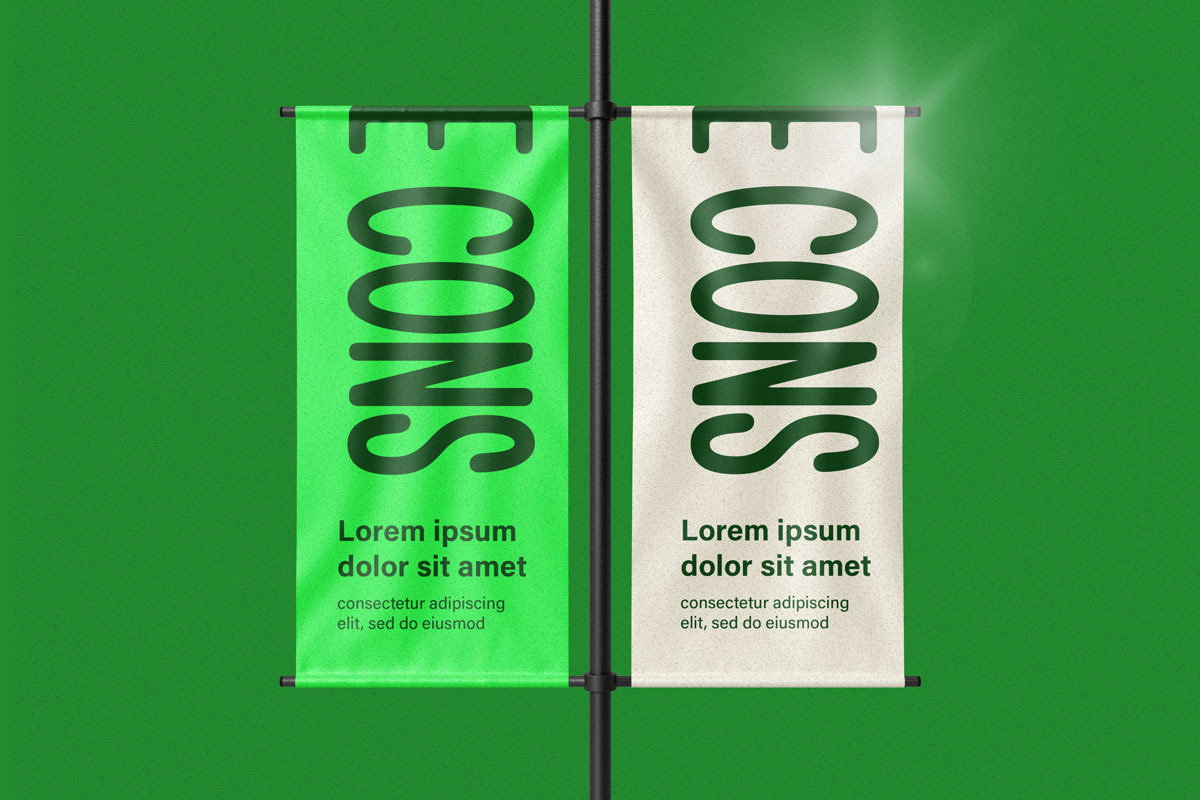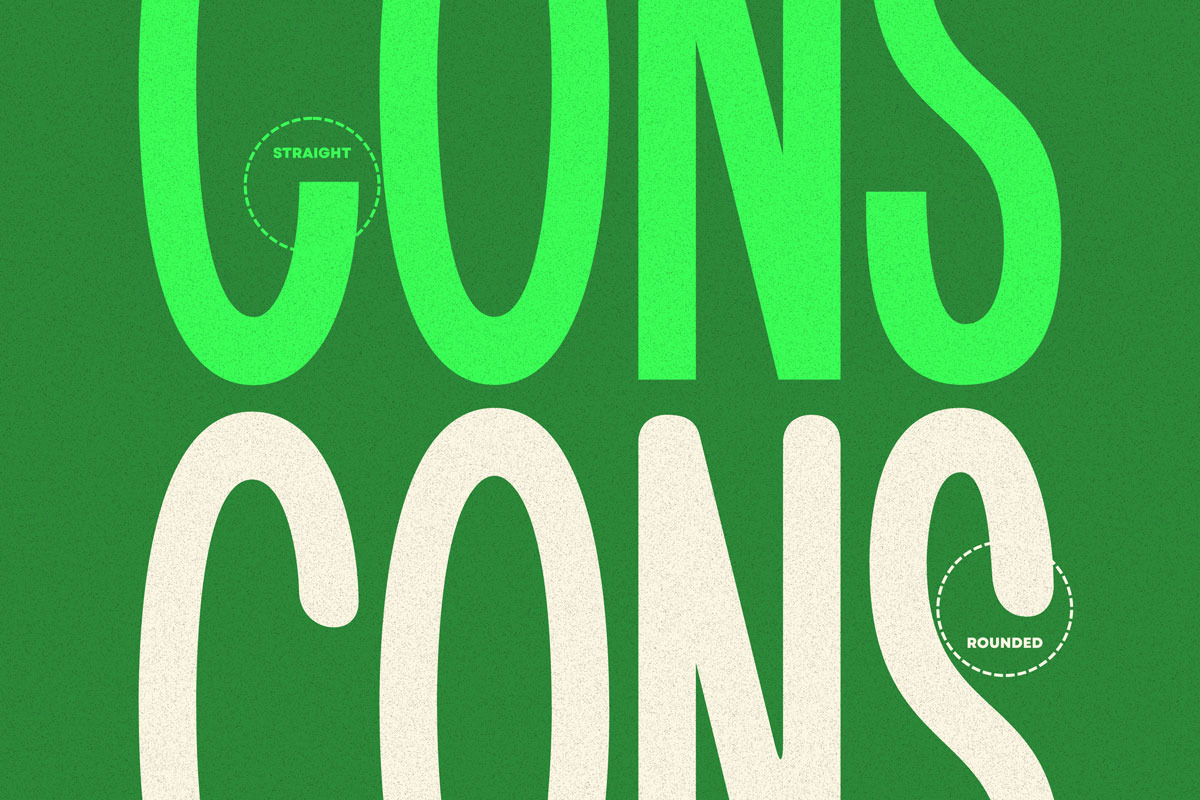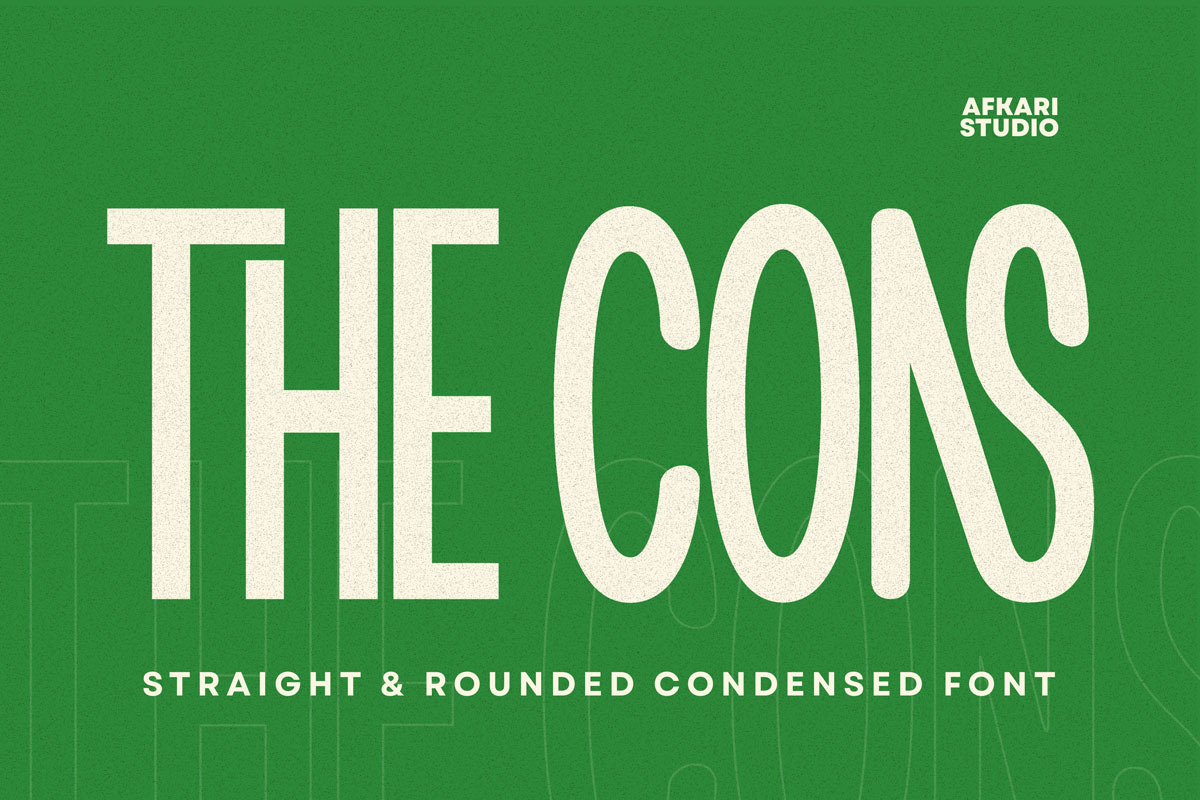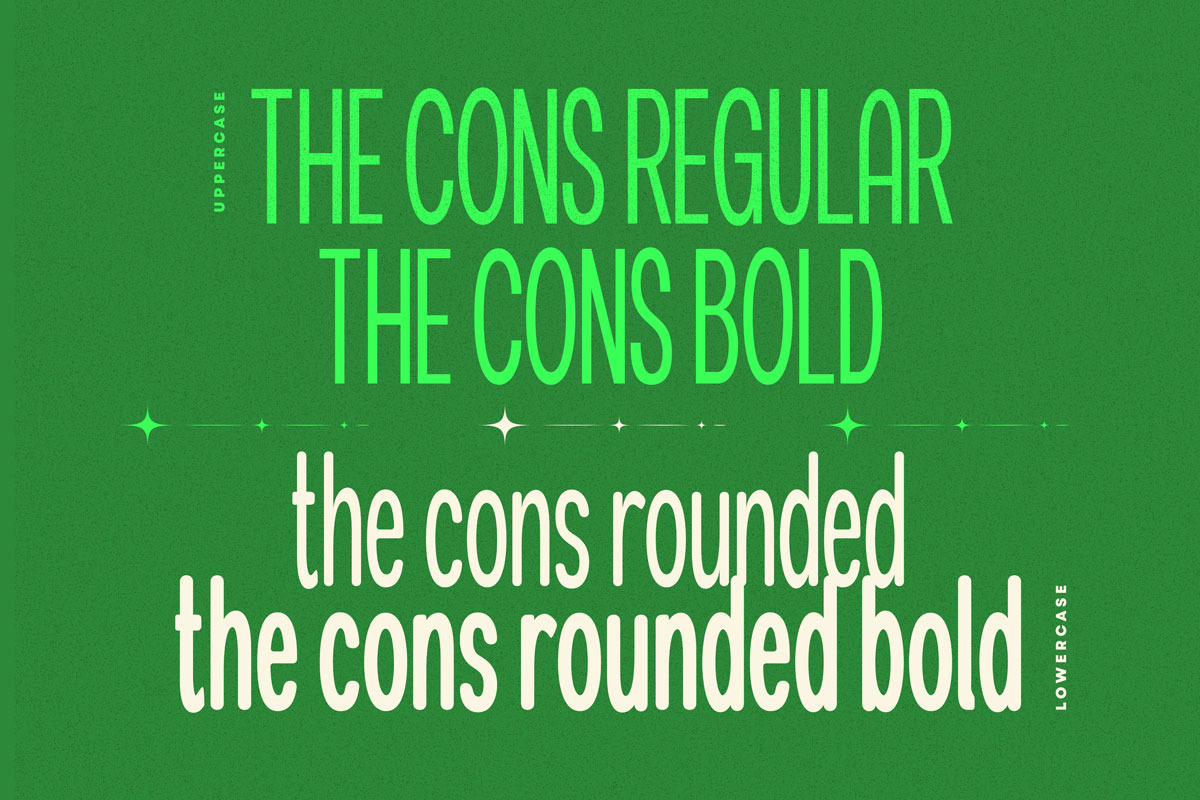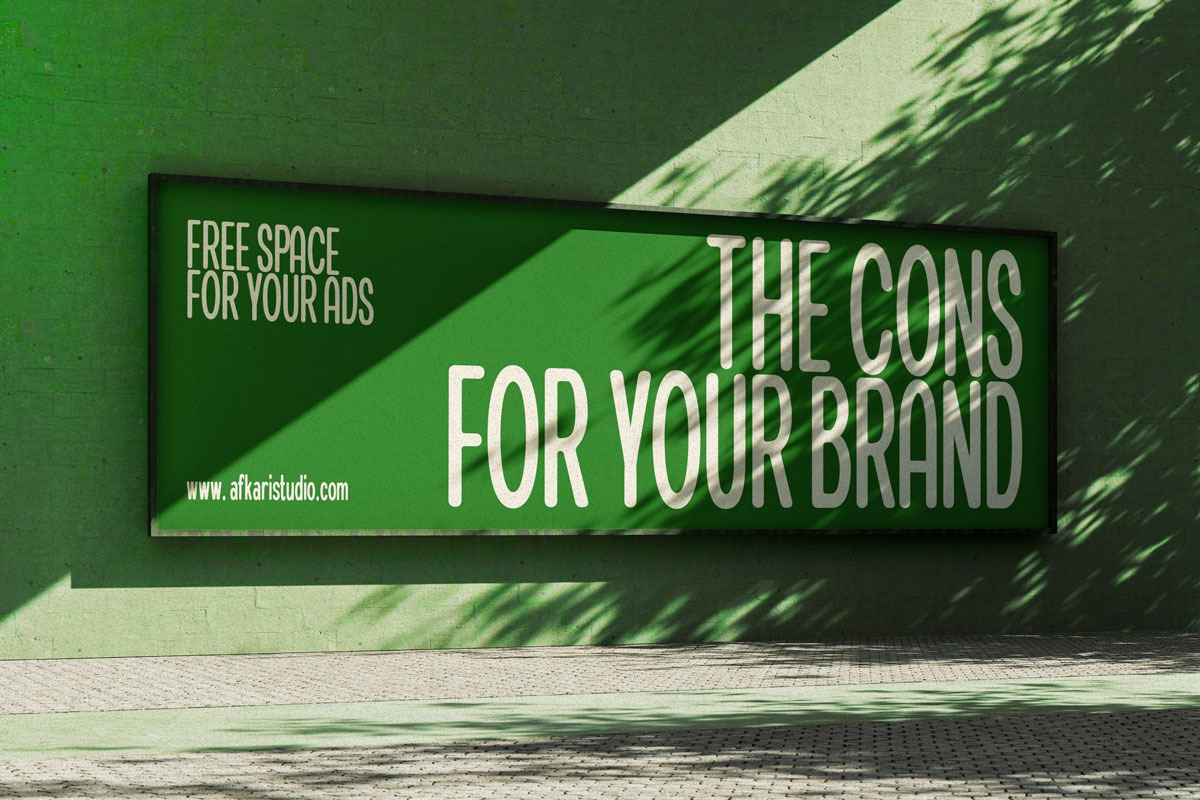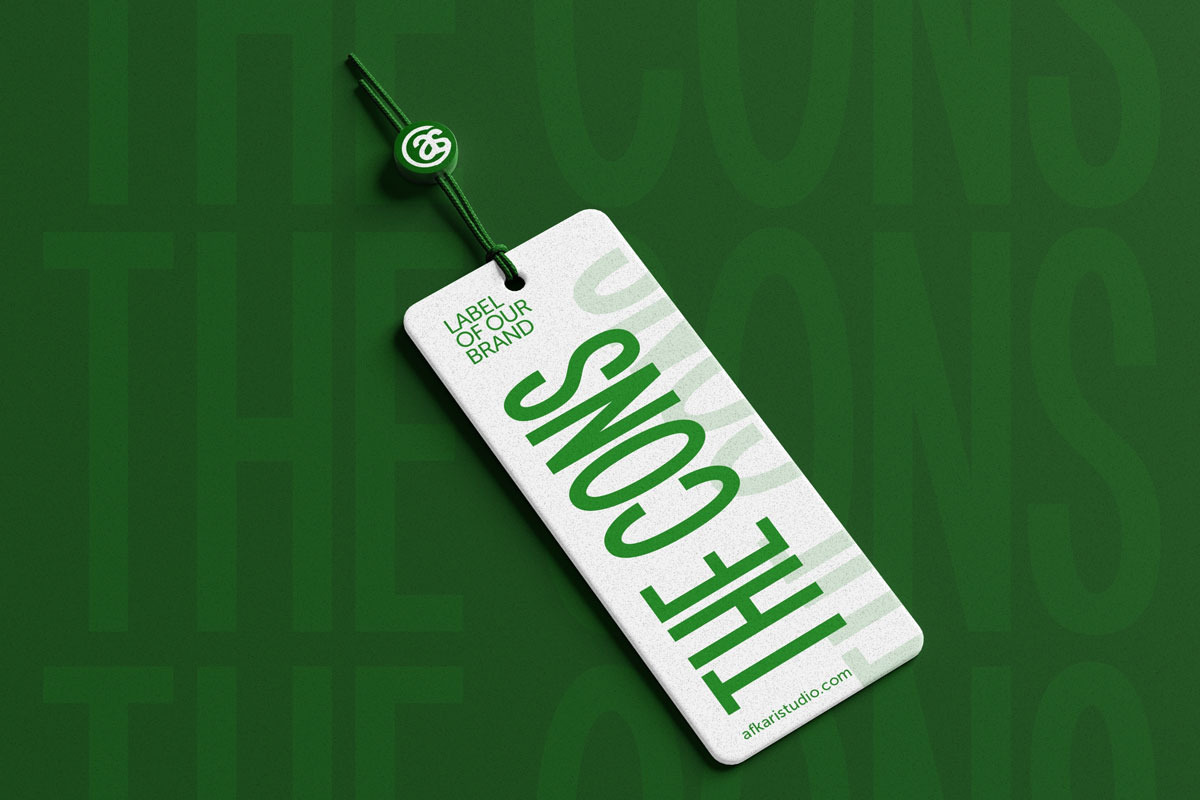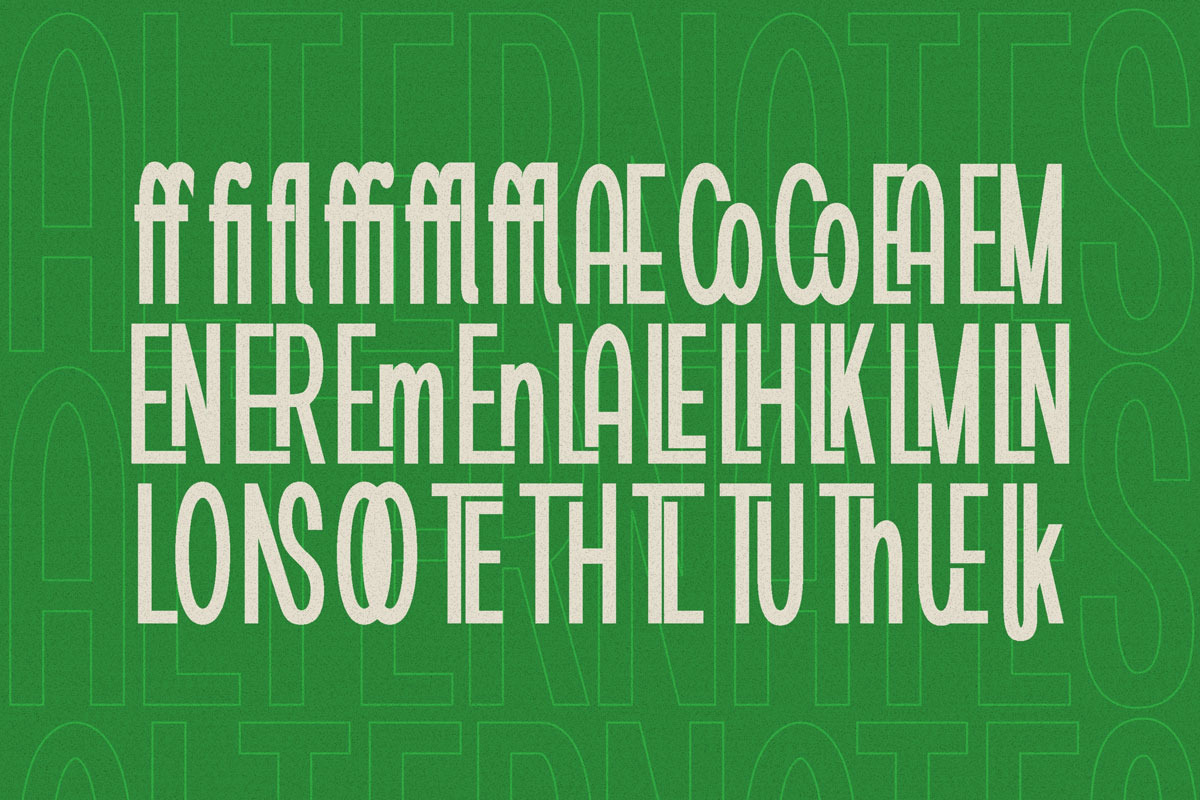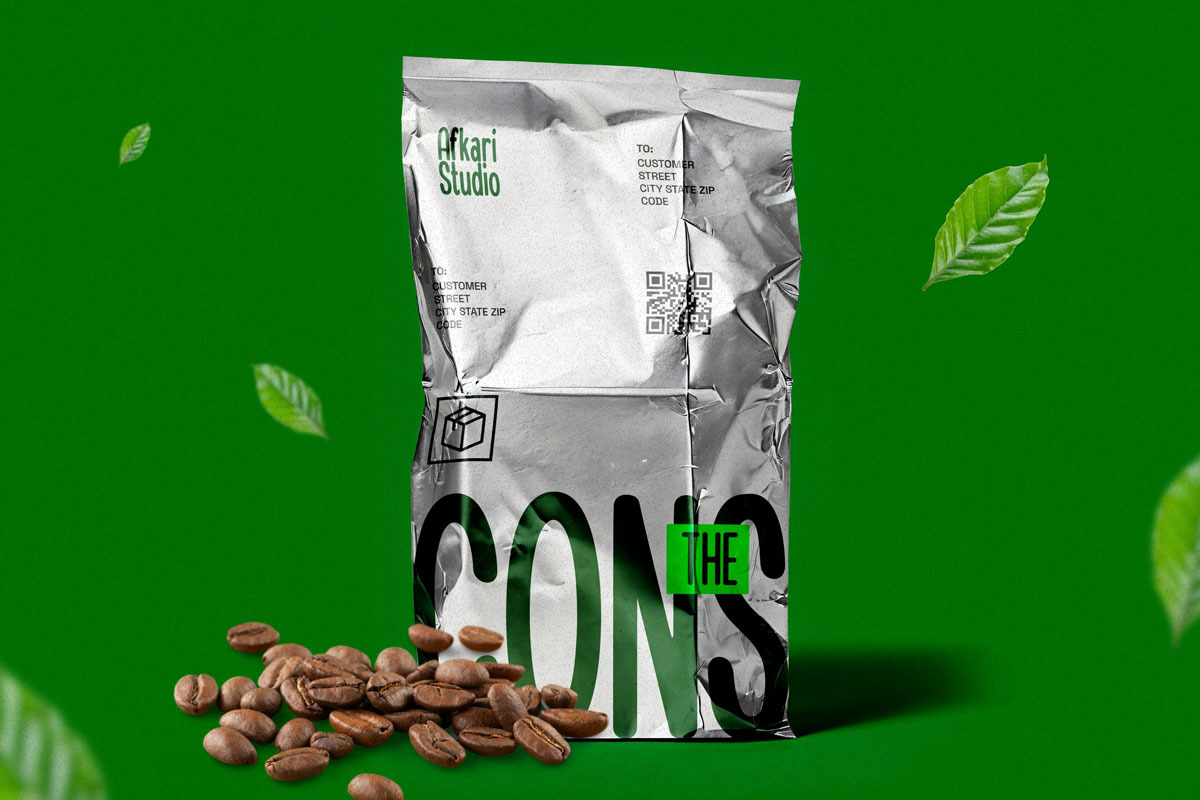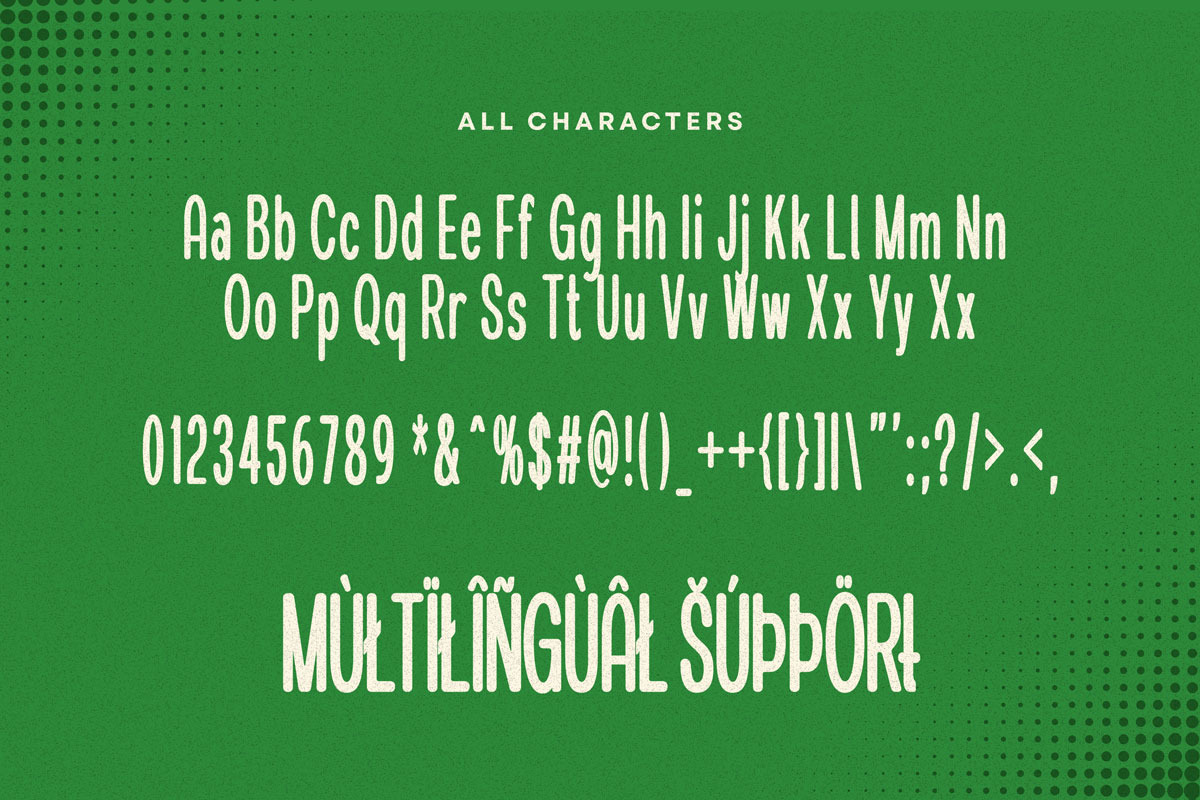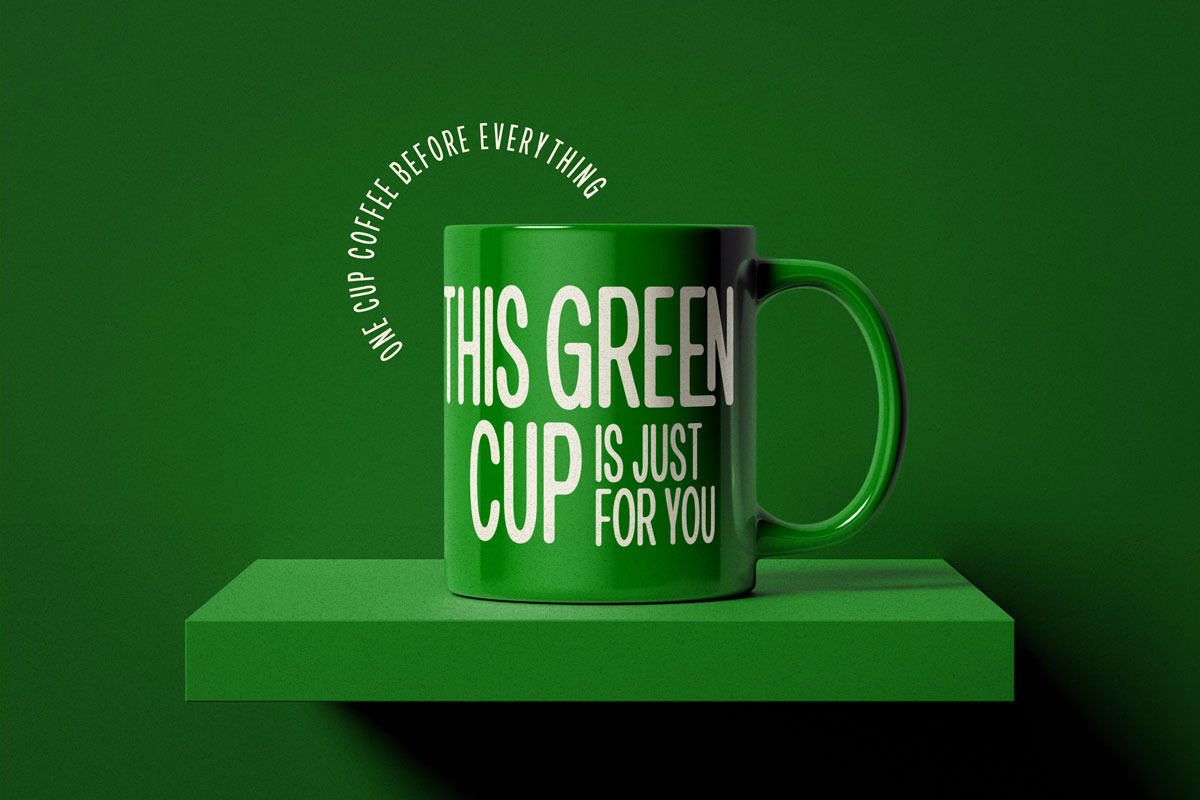
The Cons - Condensed Sans Serif Font
The Cons - Condensed Sans Serif Display Font
The Cons – Condensed Sans Serif Display Font is a strong, compact typeface crafted for designers who need maximum impact with minimal space. Its narrow letterforms and clean lines make it perfect for bold headlines, editorial layouts, modern branding, etc.
Designed with flexibility in mind, The Cons includes 4 versatile styles:
- Regular – sleek and minimal for modern aesthetics
- Bold – striking and confident for high-impact design
- Rounded – softened edges for a friendlier, approachable look
- Bold Rounded – bold with a touch of warmth and personality
Whether you're building a tech-forward brand or an urban editorial spread, The Cons delivers clarity, style, and adaptability in every character. It's the perfect choice for designers who value bold presence and clean design.
- Uppercase, Lowercase, Number, and Punctuation
- Special Alternates and ligatures
- Mültîlíñgúãl Sùppört for; ä ö ü Ä Ö Ü ß ¿ ¡
Make a bold statement in tight spaces with The Cons.